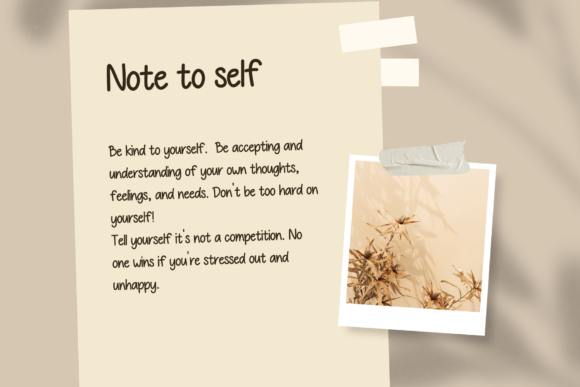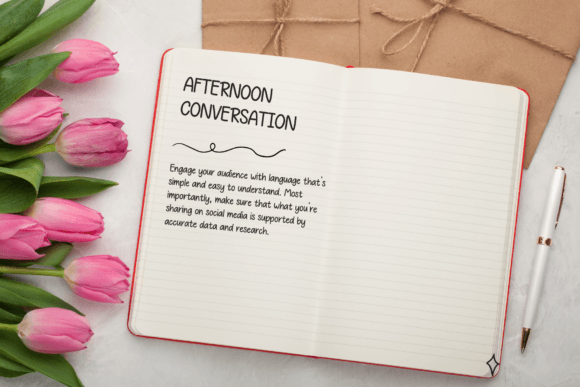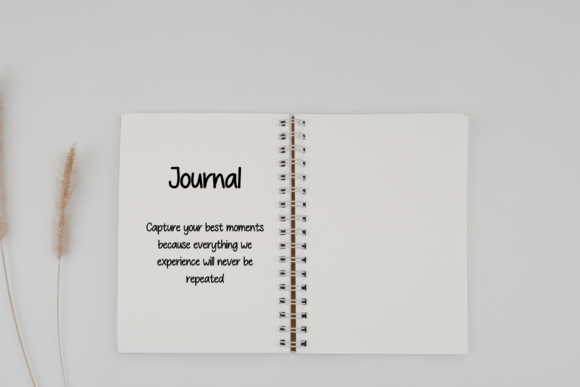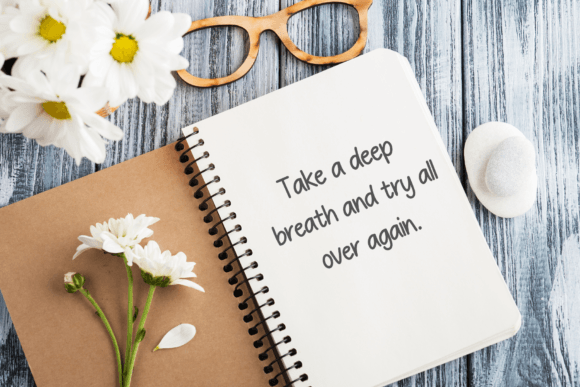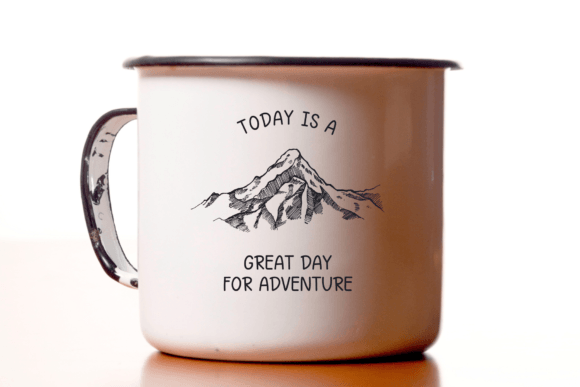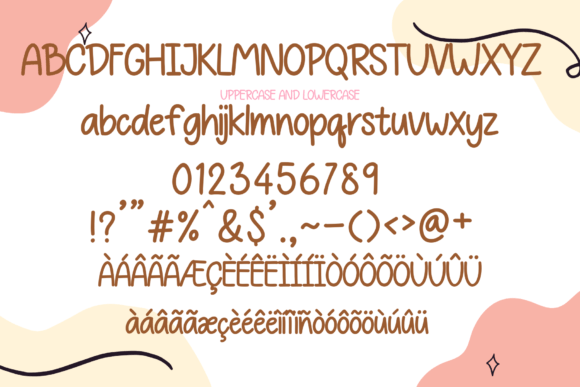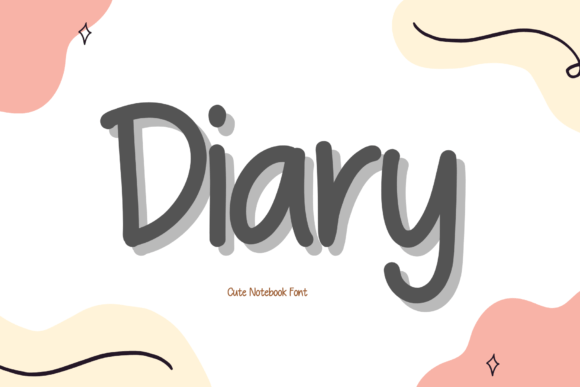
Introducing Diary Font: Elevate Your Designs with Elegance and Class
Are you a designer or crafter looking for a font that can add a touch of sophistication and elegance to your projects? Look no further than Diary Font, a friendly handwritten font that is perfect for a wide range of design applications. In this article, we’ll explore the features and benefits of Diary Font, and show you how it can elevate your designs to the next level.
What is Diary Font?
Diary Font is a beautifully crafted handwritten font that is designed to bring a sense of warmth and personality to your designs. With its smooth and flowing lines, Diary Font is perfect for creating elegant and sophisticated designs that will stand out from the crowd. Whether you’re working on a logo, wedding design, social media post, or product packaging, Diary Font is the perfect choice.
Features of Diary Font
- Handwritten style: Diary Font has a friendly and approachable handwritten style that is perfect for creating designs that feel personal and unique.
- Elegant and sophisticated: With its smooth lines and flowing curves, Diary Font adds a touch of elegance and sophistication to any design.
- Versatile: Diary Font can be used for a wide range of design applications, including logos, wedding designs, social media posts, product packaging, and more.
- Easy to read: Despite its elegant style, Diary Font is easy to read and understand, making it perfect for designs that require a clear and concise message.
Benefits of Using Diary Font
So why choose Diary Font for your designs? Here are just a few benefits of using this amazing font:
- Adds a personal touch: Diary Font’s handwritten style adds a personal touch to your designs, making them feel more unique and special.
- Elevates your brand: With its elegant and sophisticated style, Diary Font can help elevate your brand and make it stand out from the competition.
- Perfect for creative projects: Whether you’re working on a craft project, designing a logo, or creating social media graphics, Diary Font is the perfect choice.
Design Applications for Diary Font
So what can you use Diary Font for? The possibilities are endless! Here are just a few ideas to get you started:
- Logos: Use Diary Font to create a unique and memorable logo for your business or brand.
- Wedding designs: Add a touch of elegance and sophistication to your wedding designs, including invitations, stationery, and more.
- Social media posts: Use Diary Font to create eye-catching social media graphics that will stand out from the crowd.
- Product packaging: Add a personal touch to your product packaging with Diary Font.
- Invitations: Create beautiful and elegant invitations for any occasion, including weddings, parties, and more.
- Stationery: Use Diary Font to create custom stationery, including notebooks, journals, and more.
Tips for Using Diary Font
Here are a few tips for getting the most out of Diary Font:
- Experiment with different sizes: Diary Font looks great in a variety of sizes, so don’t be afraid to experiment and find the perfect size for your design.
- Pair with other fonts: Diary Font pairs well with a variety of other fonts, so try pairing it with a bold font for a striking contrast.
- Use it consistently: Use Diary Font consistently across all of your designs to create a cohesive and recognizable brand.
| Font Name | Diary Font |
| Author | nstudio design |
In conclusion, Diary Font is a versatile and elegant handwritten font that is perfect for designers and crafters looking to add a touch of sophistication and elegance to their projects. With its smooth lines, flowing curves, and easy-to-read style, Diary Font is perfect for a wide range of design applications. Whether you’re working on a logo, wedding design, social media post, or product packaging, Diary Font is the perfect choice. So why wait? Download Diary Font today and start elevating your designs to the next level!